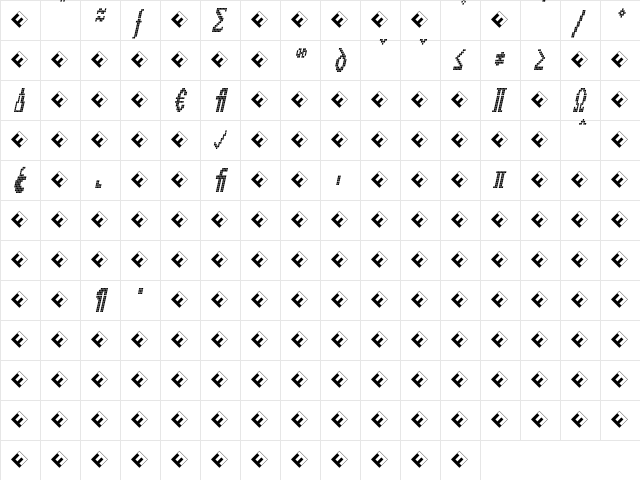
CallNineL-ItalicExp Regular
Design Context for CallNineL-ItalicExp Typeface
CallNineL-ItalicExp offers clean, dependable letterforms without strong stylistic allegiance, making it a practical choice for designers who need flexibility. The dynamic lean of this cut emphasises speed and emphasis in any layout.
Pro Tip: Try CallNineL-ItalicExp for annotation and caption copy alongside an upright companion — the contrast in angle creates a dynamic but ordered typographic system.